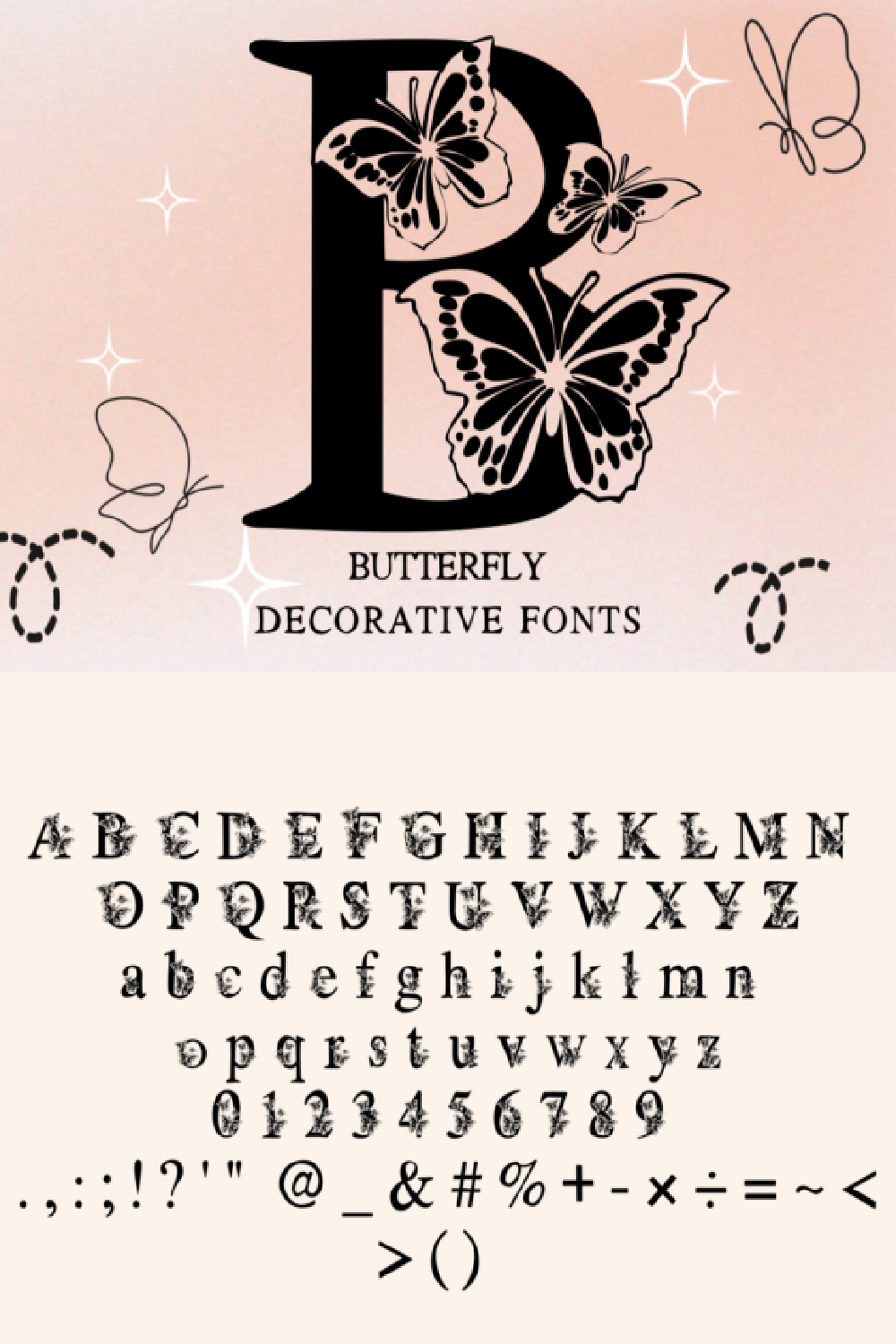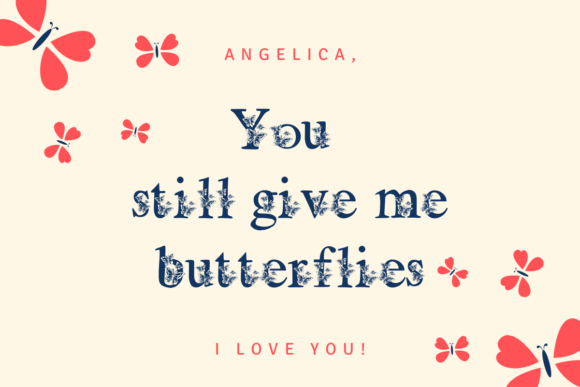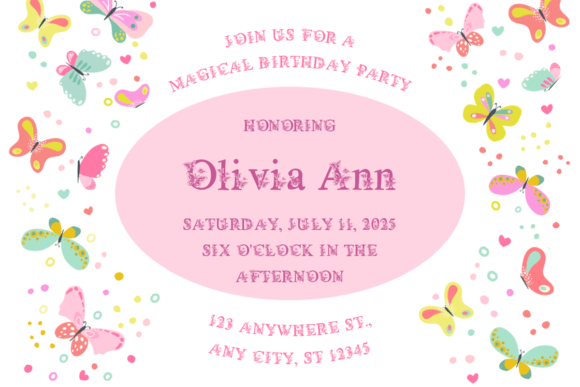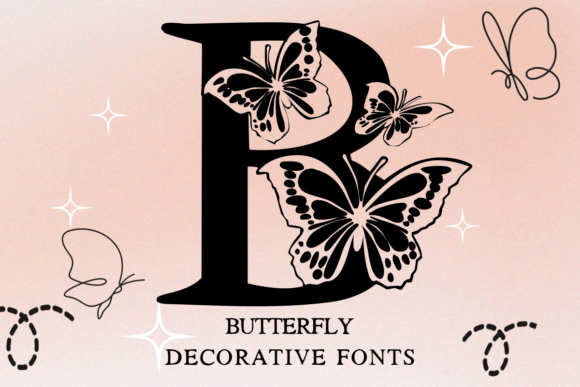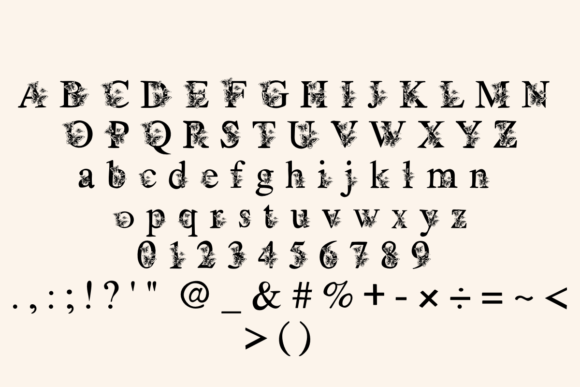
About the Butterfly Font
Discover the charm of Butterfly Font. This font is a perfect blend of modern aesthetics and classic appeal. Imagine letters dressed up with delicate butterflies, perched on each curve and line. That’s Butterfly, a fancy font where every letter gets its own special butterfly friend. It’s like a playful garden on your page, adding charm and whimsy to your words.